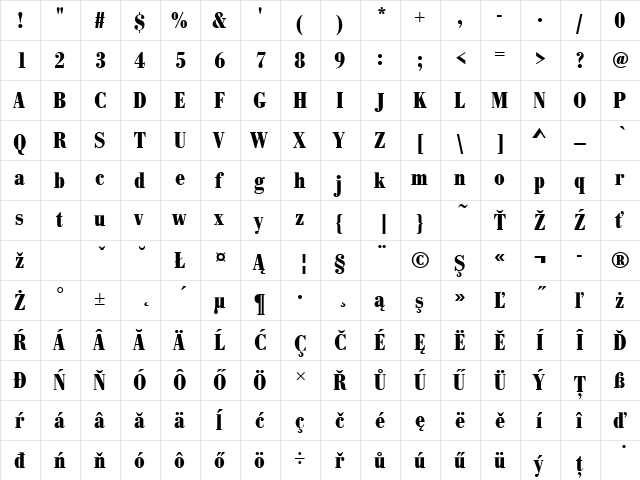
BodoniAntTEECon Bold
Design Context for BodoniAntTEECon Typeface
BodoniAntTEECon offers clean, dependable letterforms without strong stylistic allegiance, making it a practical choice for designers who need flexibility. The heavy weight commands attention and anchors typographic hierarchies.